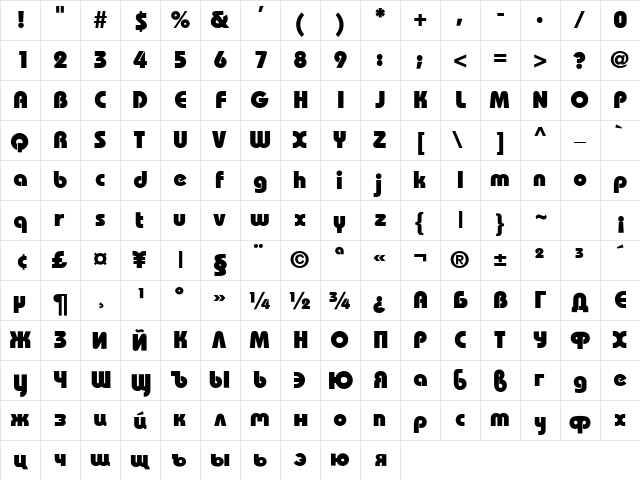
Bahamas Cyr Heavy
Bahamas Cyr offers clean, dependable letterforms without strong stylistic allegiance, making it a practical choice for designers who need flexibility.